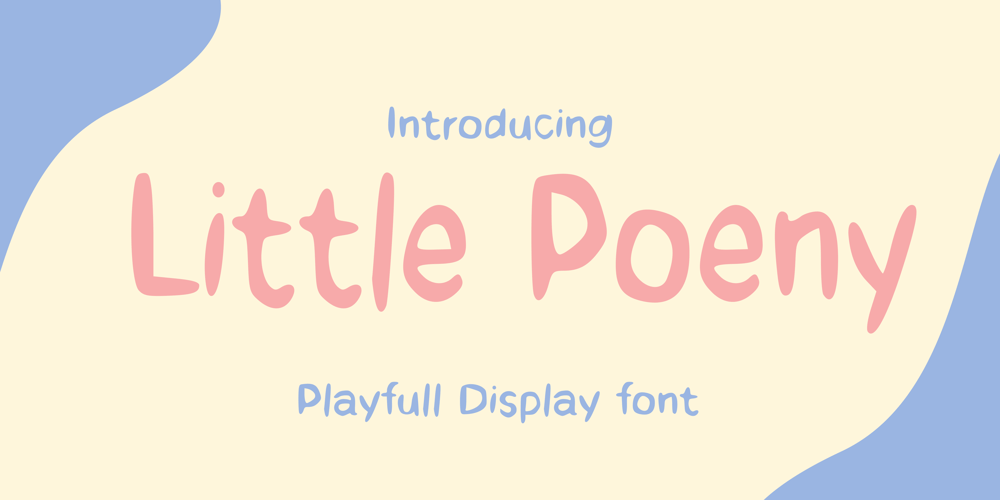
Little Poeny
Little Poeny font
Little Poeny Font Family was designed by Syaiful Rizal Muhaimin and published by Ameenatype. Little Poeny contains 1 styles and family package options. “Little Poeny” is a delightful and whimsical display font that brings a touch of playful charm to any design project. With its rounded, friendly letterforms, this font evokes a sense of innocence and joy. It’s incredibly versatile, making it suitable for a wide range of applications, from children’s designs and party invitations to marketing materials that require a fun and approachable vibe.